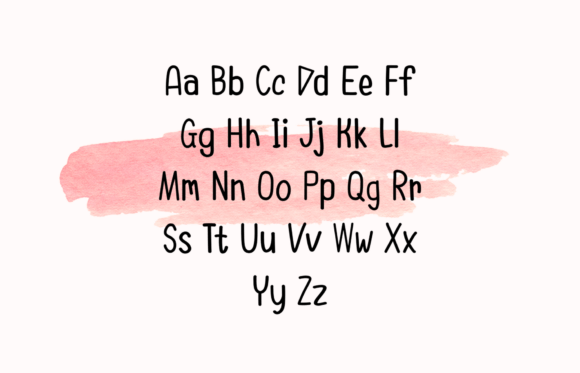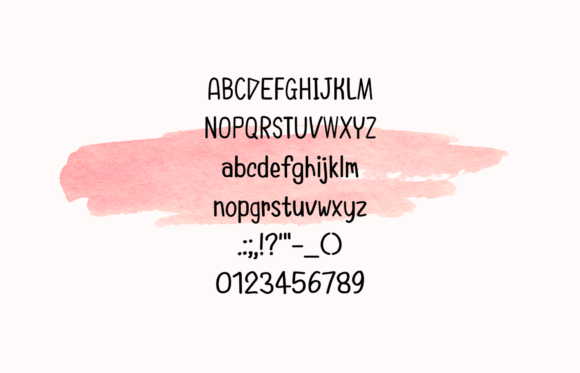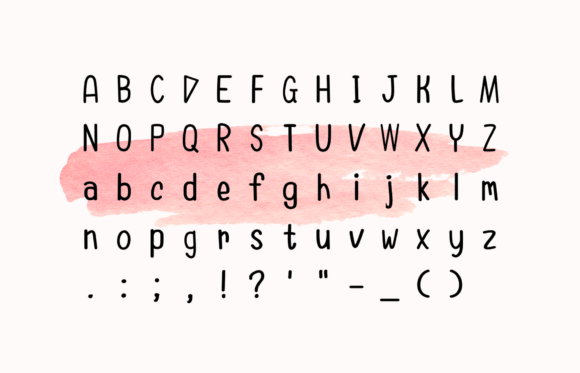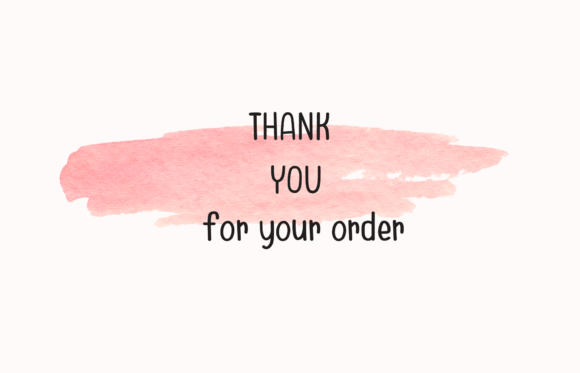
Canna Font: The Sweet and Friendly Handwritten Display Font
Are you looking for a font that can add a fun and playful touch to your designs? Look no further than Canna Font! This sweet and friendly handwritten display font is perfect for crafts, digital design, presentations, and a wide range of other creative projects. In this article, we’ll take a closer look at Canna Font and explore its many uses and benefits.
What is Canna Font?
Canna Font is a beautiful, handwritten display font that is designed to bring a touch of whimsy and fun to your designs. Its sweet and friendly style makes it perfect for a wide range of projects, from wedding invitations and cards to posters, movie titles, and more. Whether you’re a designer, crafter, teacher, or student, Canna Font is a great choice for adding a playful touch to your work.
Key Features of Canna Font
So, what makes Canna Font so special? Here are just a few of its key features:
- Sweet and friendly style: Canna Font has a warm and approachable style that’s perfect for creating designs that are fun and engaging.
- Handwritten display font: This font has a beautiful, handwritten feel that’s perfect for adding a personal touch to your designs.
- Cute and fun: Canna Font is designed to be playful and fun, making it perfect for projects that require a lighthearted touch.
- Versatile: This font can be used for a wide range of projects, from crafts and digital design to presentations and more.
Uses for Canna Font
So, what can you use Canna Font for? The possibilities are endless! Here are just a few ideas to get you started:
- Crafts: Canna Font is perfect for crafters who want to add a personal touch to their projects. Use it for scrapbooking, card making, and more.
- Digital design: This font is great for digital designers who want to create fun and engaging designs for their clients. Use it for social media graphics, blog posts, and more.
- Wedding invitations and cards: Canna Font is a beautiful choice for wedding invitations, thank you cards, and other wedding stationery.
- School projects: Teachers and students will love using Canna Font for school projects, such as posters, presentations, and more.
- Comic book style designs: This font has a fun and playful style that’s perfect for comic book style designs, such as graphic novels and illustrations.
- Game design: Canna Font can be used to create fun and engaging game designs, such as titles, menus, and more.
- Love shirts and apparel: This font is great for designing love shirts, hoodies, and other apparel that’s fun and playful.
- Posters and movie titles: Canna Font can be used to create eye-catching posters and movie titles that are fun and engaging.
Benefits of Using Canna Font
So, why should you choose Canna Font for your next project? Here are just a few benefits of using this font:
- Easy to read: Canna Font is clear and easy to read, making it perfect for designs that require a lot of text.
- Highly versatile: This font can be used for a wide range of projects, from crafts and digital design to presentations and more.
- Fun and playful: Canna Font has a fun and playful style that’s perfect for designs that require a lighthearted touch.
- Great for kids and adults alike: This font is perfect for designs that are intended for kids or adults, making it a great choice for a wide range of projects.
| Font Name | Canna Font |
| Author | Beer Design |
In conclusion, Canna Font is a sweet and friendly handwritten display font that’s perfect for a wide range of creative projects. Its fun and playful style makes it ideal for crafts, digital design, presentations, and more. Whether you’re a designer, crafter, teacher, or student, Canna Font is a great choice for adding a playful touch to your work. So why wait? Download Canna Font today and start creating fun and engaging designs that are sure to delight!